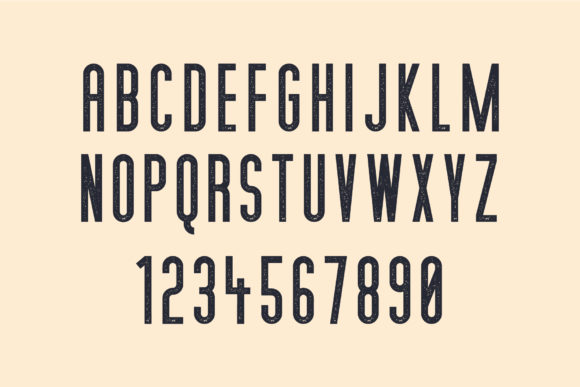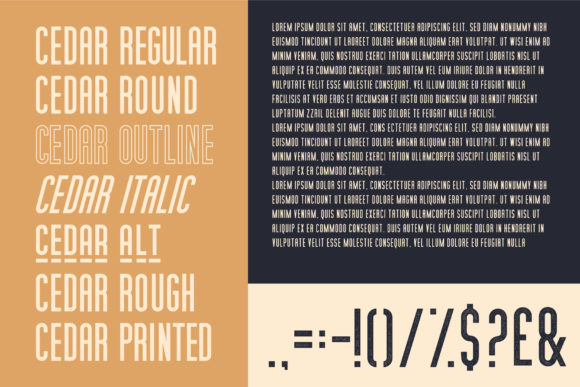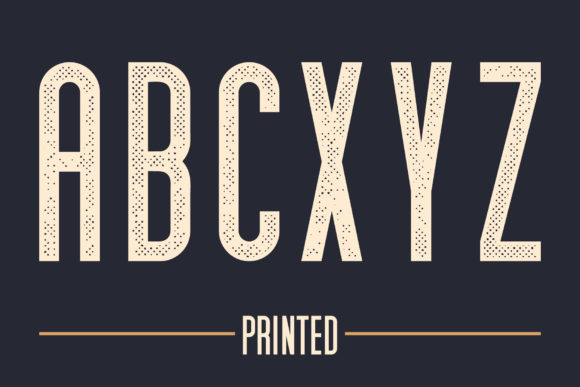
Cedar Ridge Font
The Cedar Ridge is a condensed textured typeface that comes in 7 different styles; regular, round, rough, alt, outline, italic, and printed. It works great as either a logo font or as the accompanying secondary text.